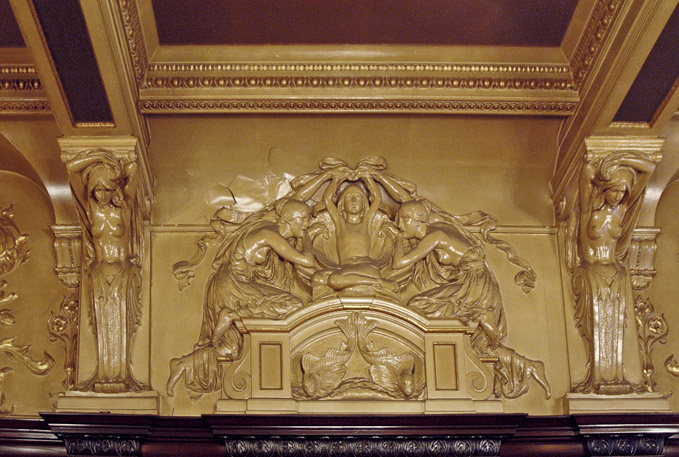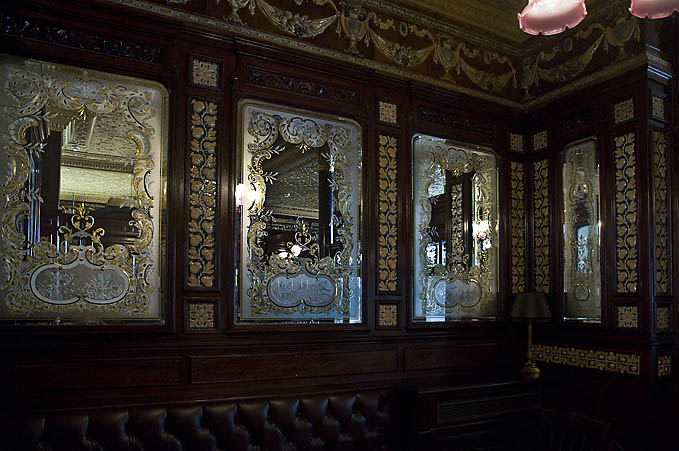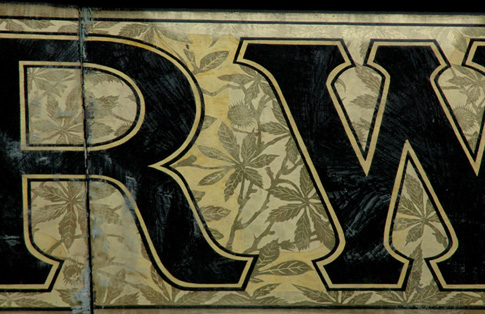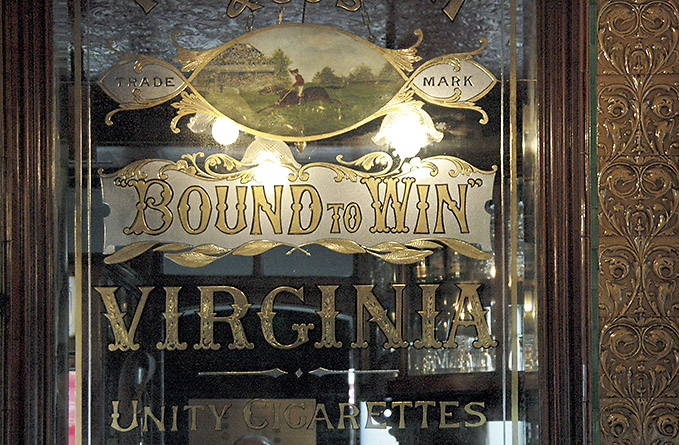
Masterpiece Signs of the World (Images & Addresses)
The basic idea here is to post the location of the best signs and art found in ordinary locations such as pubs and shopfronts etc from times gone by . No rules as such but it should be still in existance , please give full address and a short discription and a picture. (Admin Note: Images in this thread should probably be open to any sign anyone thinks is a masterpiece and not limited to pubs nor limited to signs found only in non-US countries. If you link to other images found on the Internet, please include the URL to the site from which it is linked. MJ)
Here are a couple to start it off:
No1
The Philharmonic Dining Rooms Hope Street Liverpool England
Probably one of the most ornate pubs in England Carving ,gilding, cut glass, I suggest you take the time to have lunch here No 2 Brooks & Co 136 Baggott Street Dublin Ireland
Nice carved fascia and glass panel, My mother grew up in this neighbourhood and remembers the shop from the 1930's. Dublin will feature further on in this list
a couple of shots from inside the philharmonic
Paris side streets.
Gare De Lyon is a major train station in downtown Paris
and Hermes department store also in Paris
The Tottenam Pub in London
The Vines Pub also in Liverpool. Two sides of the same fireplace.
Where are the masterpieces of North America to be seen?
The Forresters Arms. Ashton Old Road .Manchester
This little gem is in a run down part of town, most of the shops and houses around it have been demolished so I think this must have a preservation order on it. Whist there are a few ceramic tiled pubs around most do not have the original lettering mainly due to changes in brewery ownership and name changes. a few years ago they took a pub like this down tile by tile and reconstructed it a Manchester airport (terminal 1 departures) No art and craft inside!
Rondo Beach Brewing in Los Angeles
the kings head in Londonand the Princess Louise also in London. Probably the finest English glass work still existing[/attachment] and lastly (for now) another marvelous example of a tiled exterior at Peveril of the Peak in Manchester